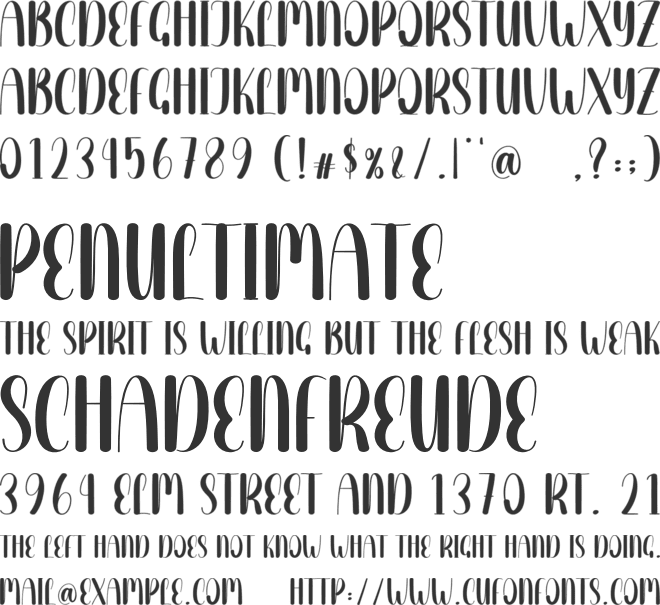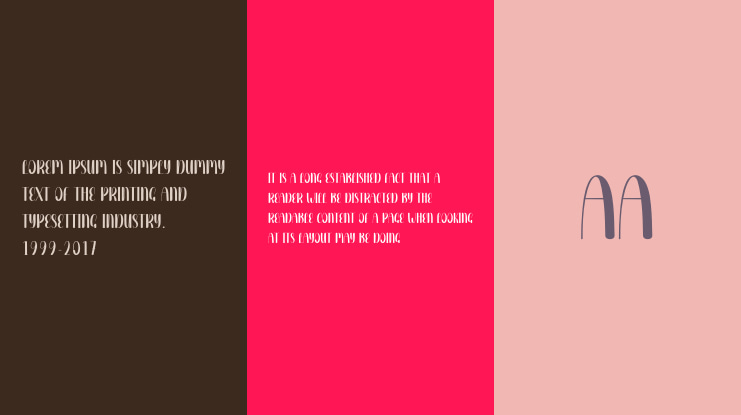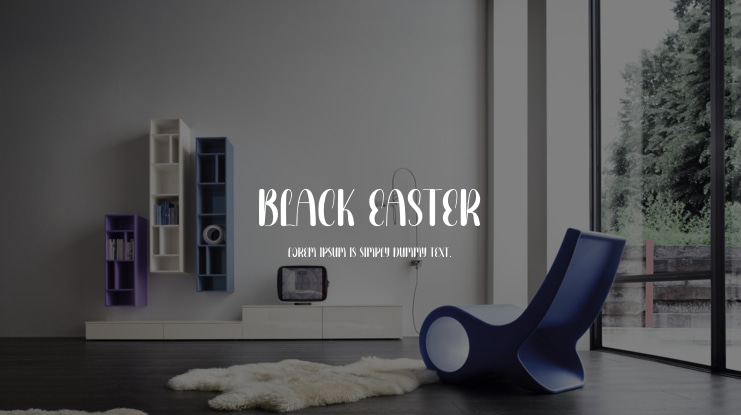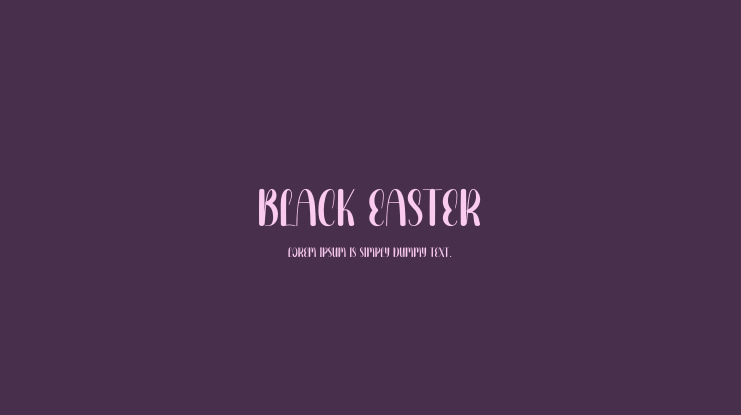
Black Easter Font
This is a sweet and friendly handwritten display font. Cute and fun, this font is ideal for writing wedding invitations, cards, or any other design that might need a playful touch! Visit the following website for commercial purchases: [Scratch Ones](https://scratchones.com/) or you can contact the following email if you have any questions, or if you're interested in custom fonts, adding font glyphs, editing fonts, and other commercial inquiries: . Thank you!